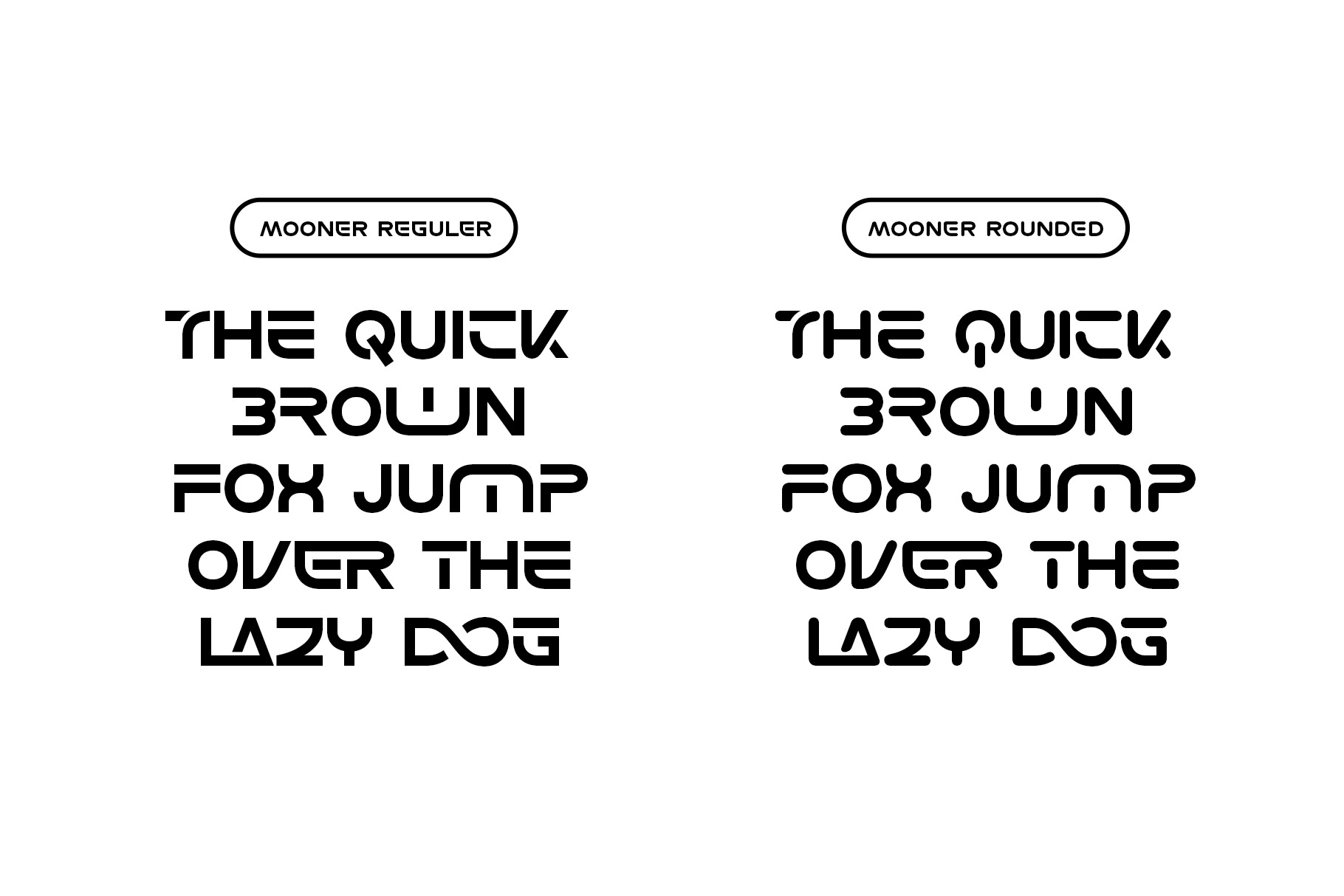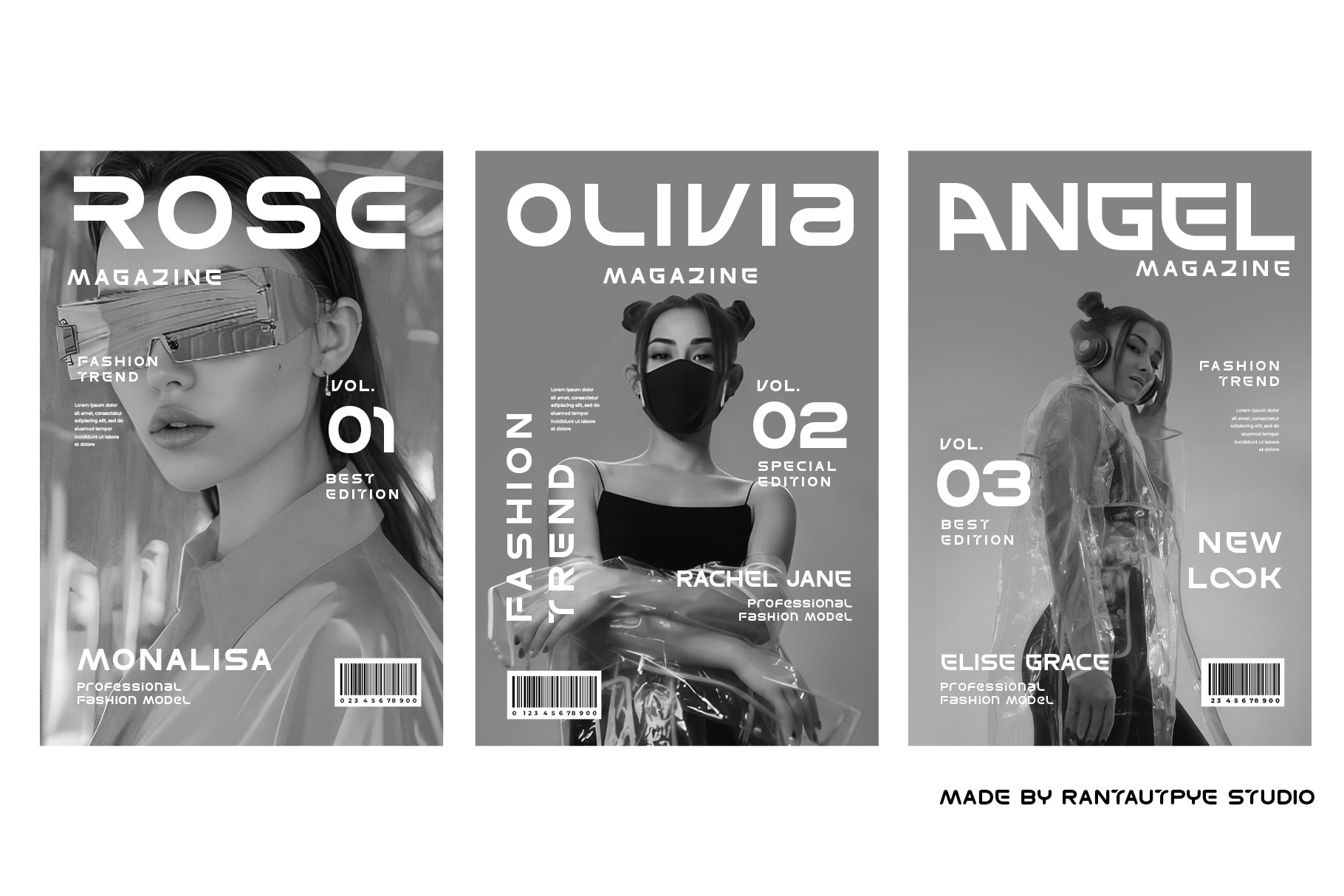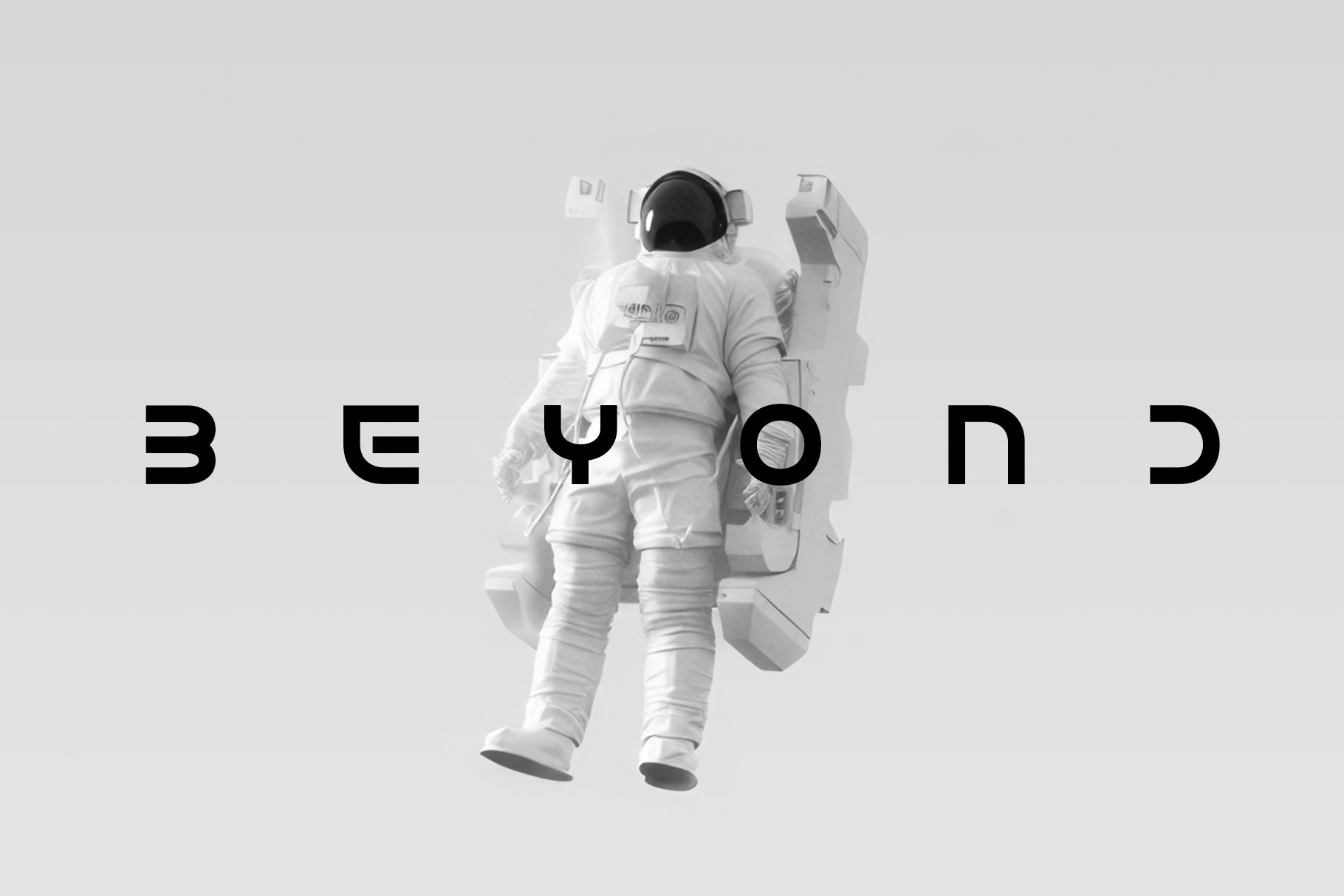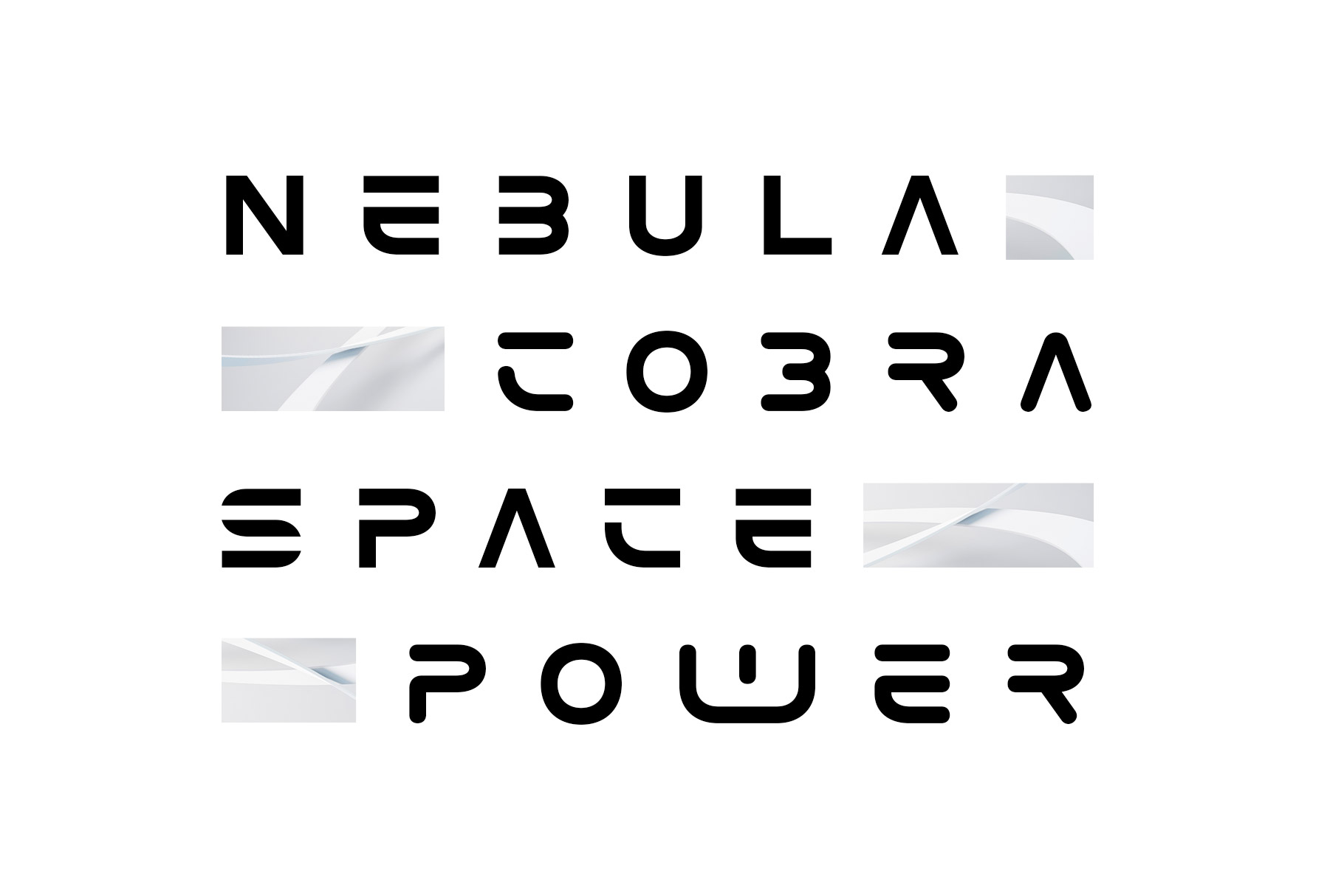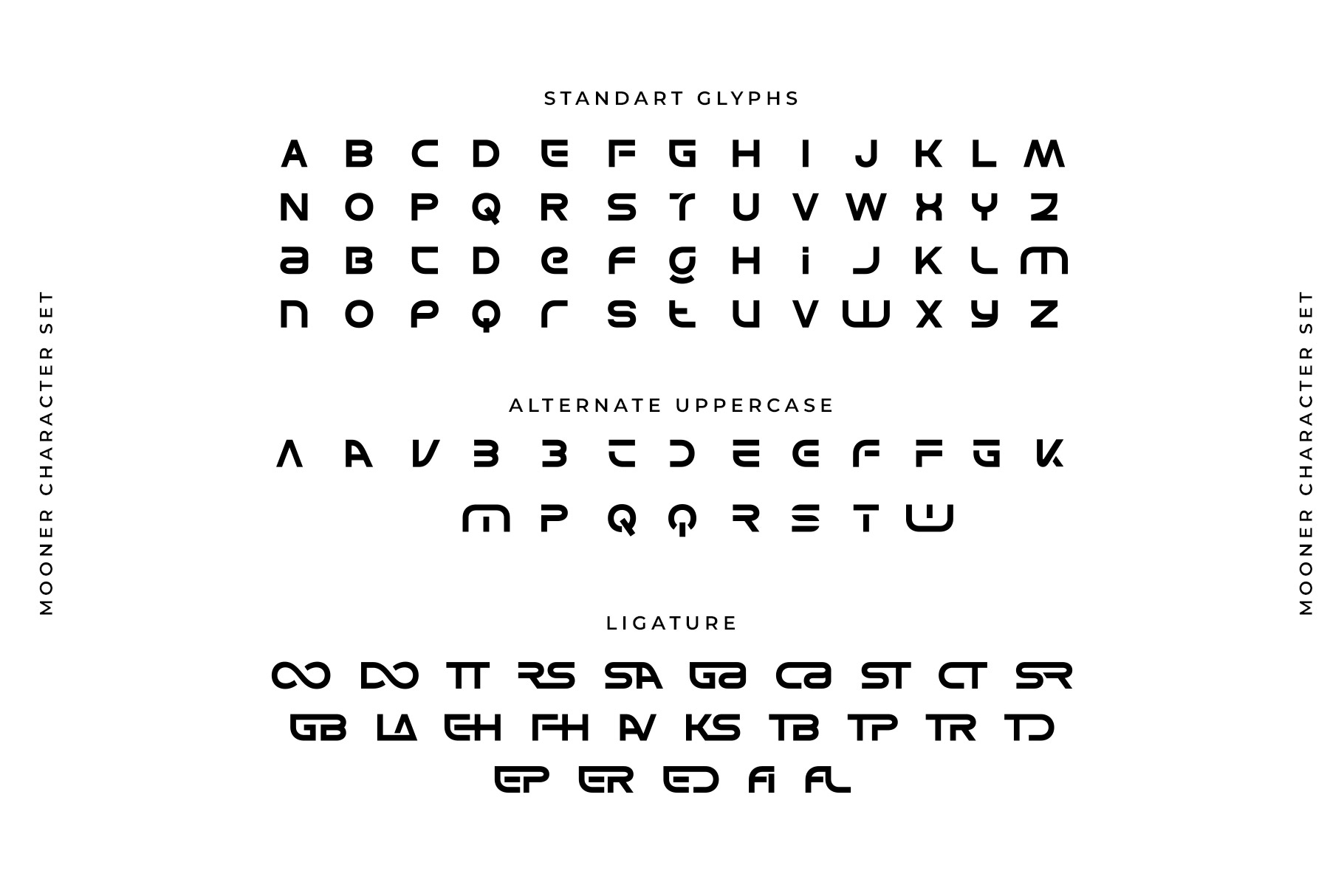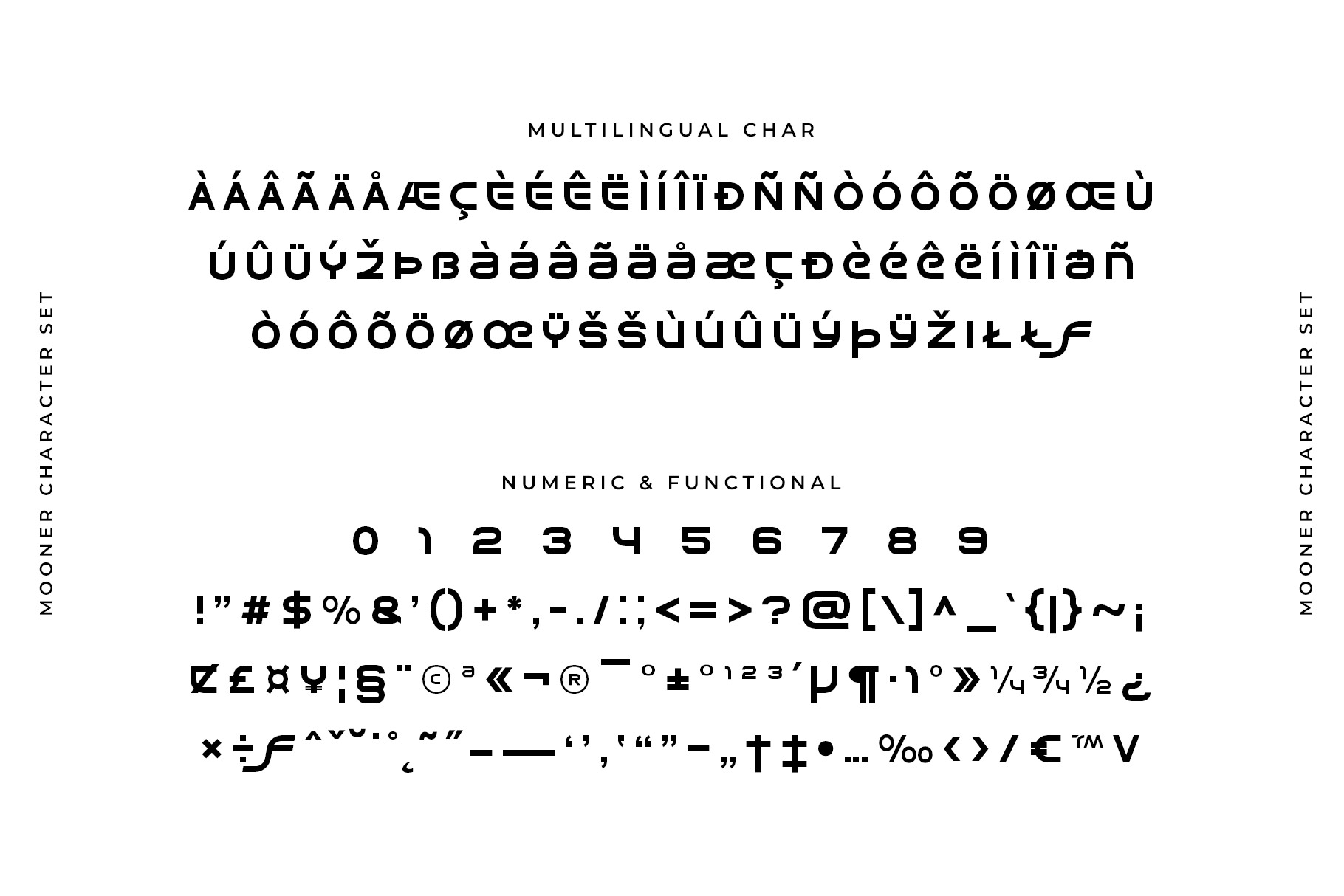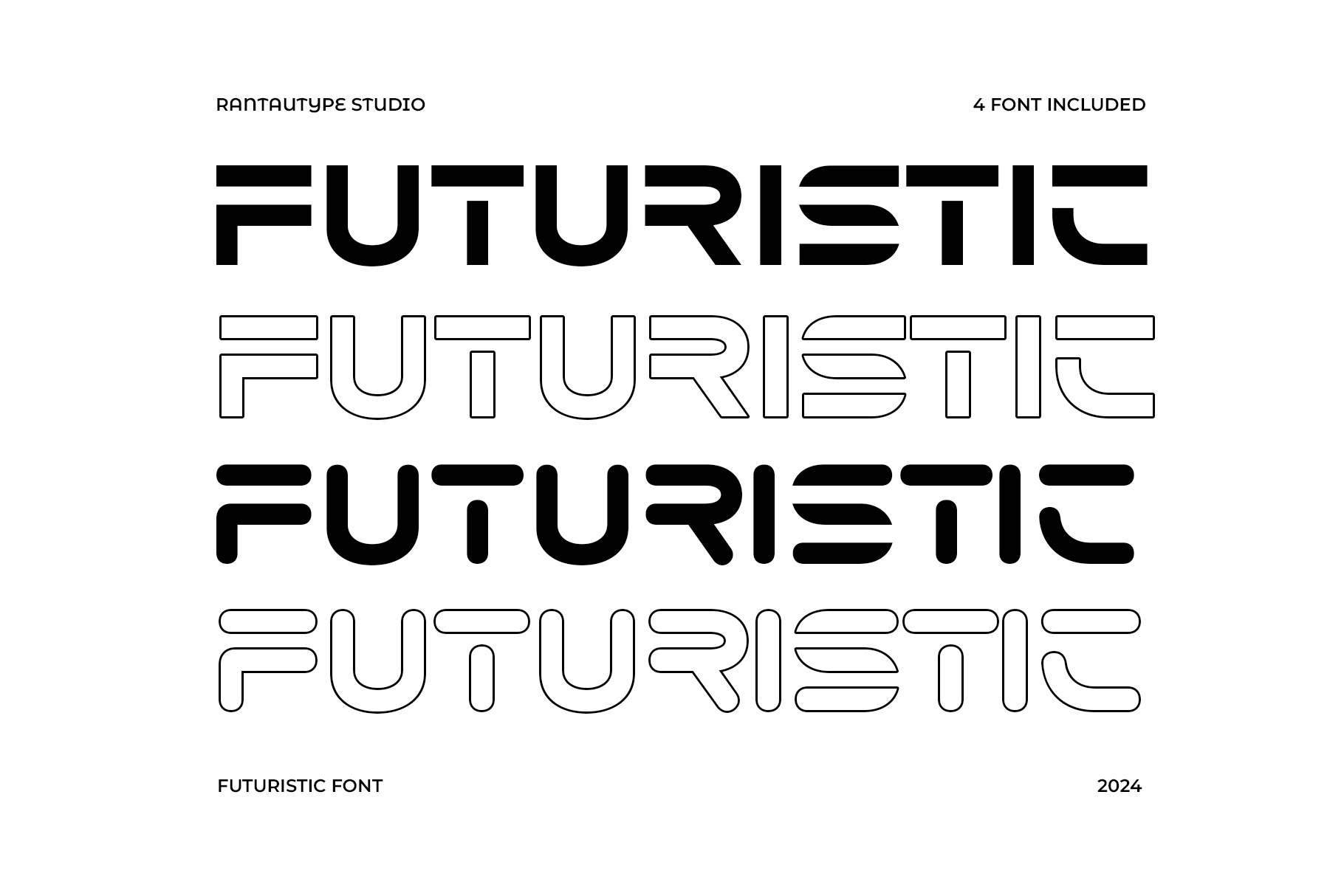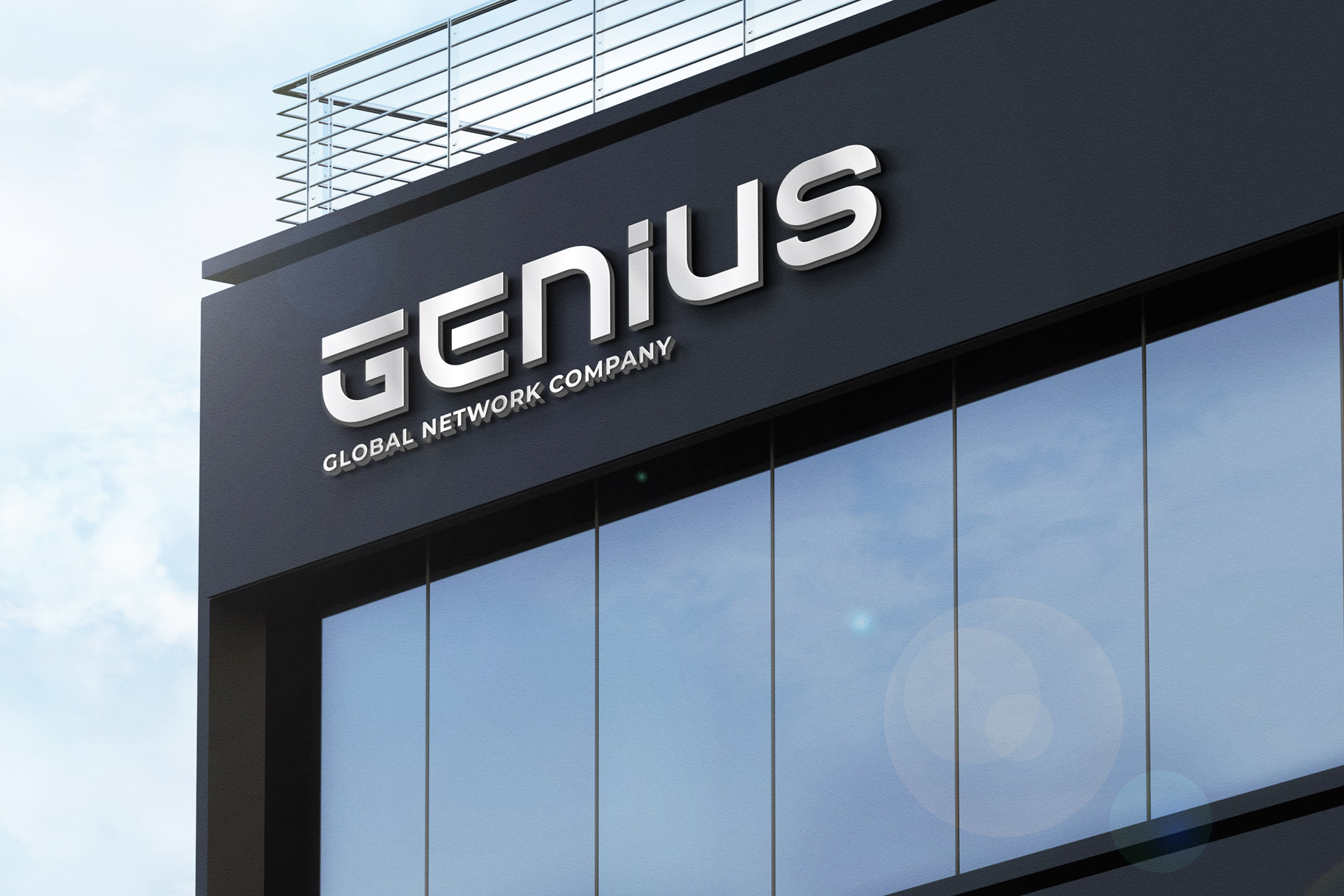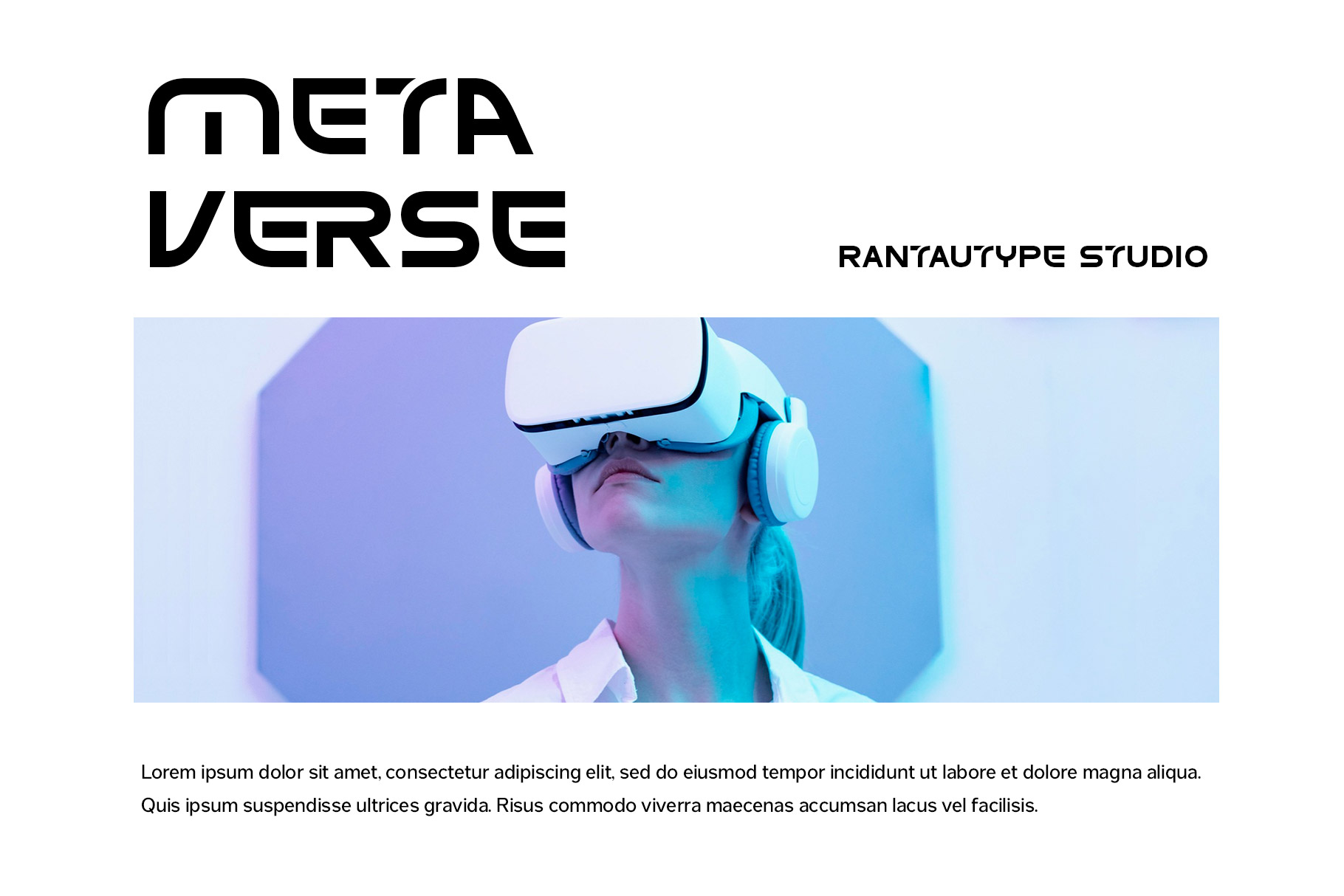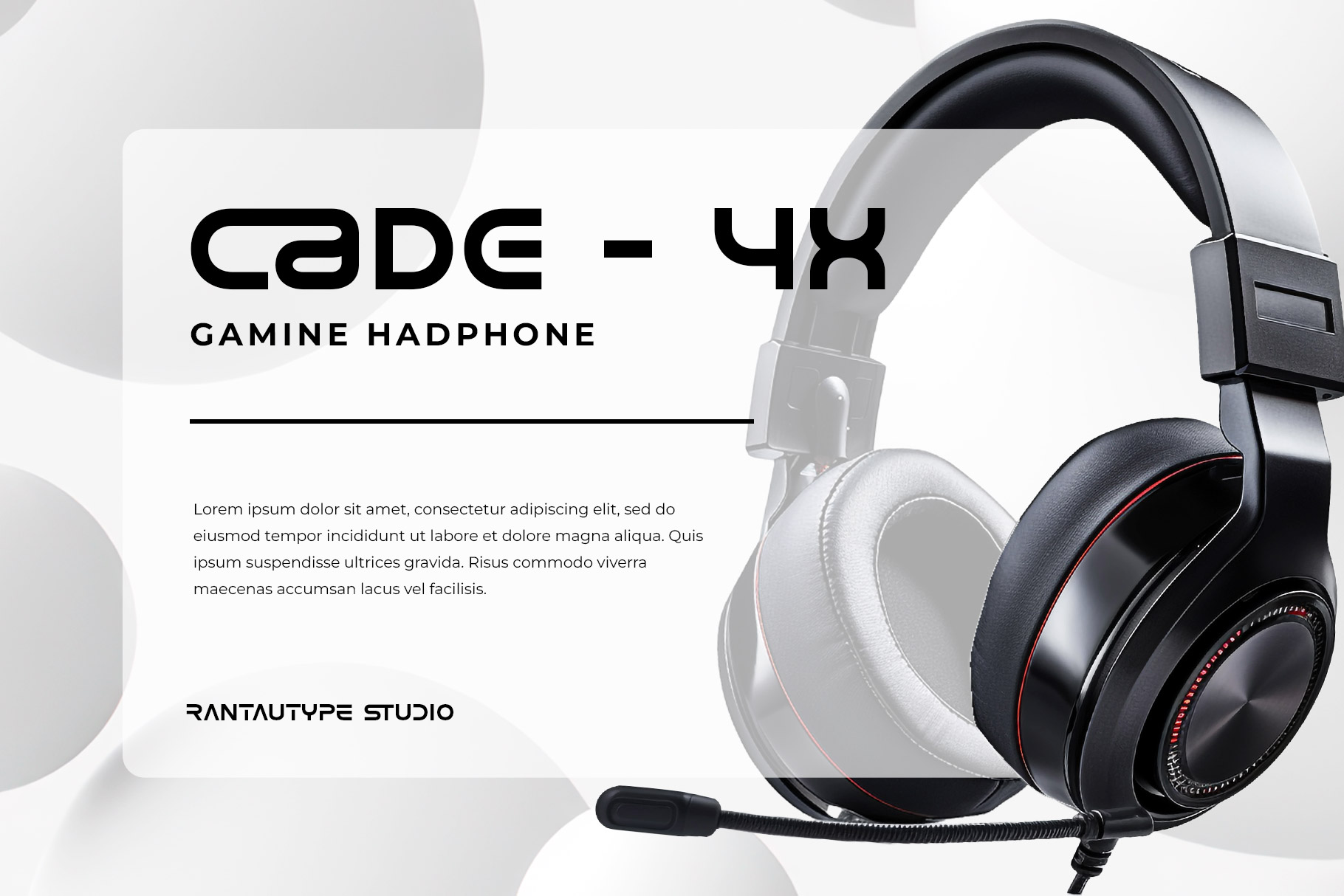
Mooner Modern Futuristic Font
Mooner is modern futuristic font inspire by high technology era like affiliate intelligence, robotic and futuristic visual design. Each character reflect elegance and minimalist future look which one to help you make design project stand out!. Mooner is complex font with special alternate, ligature and already support multilingual character.
Mooner is a perfectly choice for any creative endeavor, lifestyle design such as logos, advertisements, watermark on photography, stationery, branding project, display and magazine, invitation, corporate brand, product design, label, business project and many other project with futuristic touch.